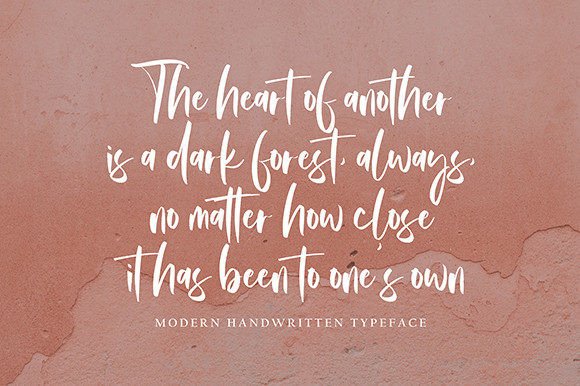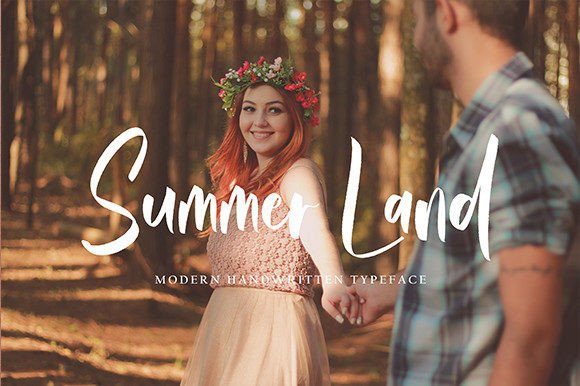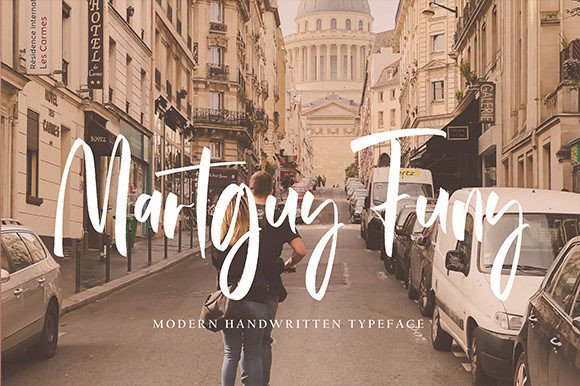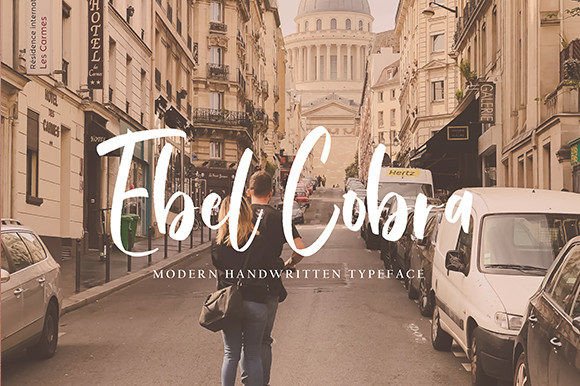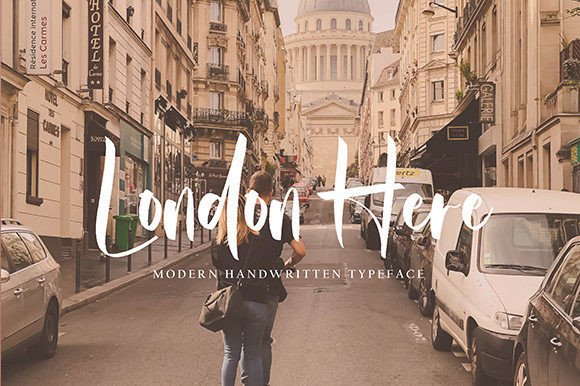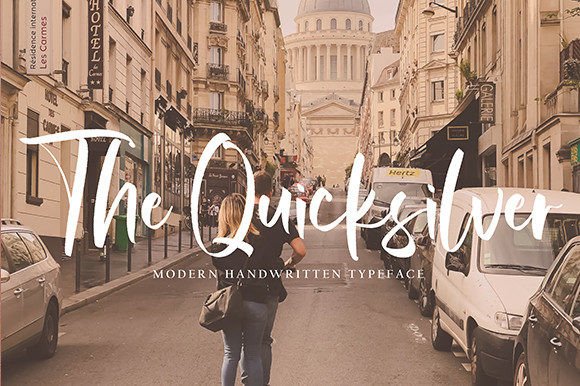
Introduction to Rothhiboy Font
As a designer, there’s nothing quite like the thrill of staring at a blank canvas, waiting for inspiration to strike. It’s that moment when you finally find the perfect font to bring your creative vision to life – and that’s exactly what the Rothhiboy Font does.
With its unique, handwritten script style, the Rothhiboy Font is a game-changer for any design project. Whether you’re working on a logo, social media graphics, or a full-fledged campaign, this high-quality font is sure to elevate your work and make it stand out from the crowd.
As a valuable addition to any designer’s library, the Rothhiboy Font offers a free download with a transparent background, making it easy to integrate into your creative project. In this article, we’ll explore the features and benefits of this amazing design resource, and show you why it’s a must-have for any serious designer.
Key Features of Rothhiboy Font
- High-quality font design suitable for creative projects, with a unique and modern style.
- Designed to be versatile, suitable for a wide range of design applications, from logos and branding to digital art and print materials.
- Includes a range of characters, including uppercase and lowercase letters, numbers, and punctuation marks, making it a comprehensive design resource.
- Perfect for designers looking for a unique and creative font to enhance their designs, and is an excellent addition to any design resource library.
Honest Review: Rothhiboy Font
As a designer, I was excited to dive into the world of Rothhiboy Font. This free download has been gaining popularity, and I wanted to see what all the fuss was about. Let’s take a closer look.
- What works well: ✨ The Rothhiboy Font is incredibly versatile, suitable for a wide range of creative projects, from elegant wedding invitations to modern business cards. Its high quality is evident, with crisp lines and a clear, readable font.
- What works well: ✨ The font’s transparent background makes it easy to use as a design resource, allowing me to layer it over other elements without any issues.
However, I did encounter a few limitations: ⚠️ The Rothhiboy Font is a bit limited in terms of customization options. While it’s great for general use, it might not be the best choice for complex, intricate designs.
Overall, I’m impressed with the Rothhiboy Font. Its high quality and versatility make it a great addition to any designer’s toolkit. While it may have some limitations, it’s a solid choice for a wide range of creative projects.
The Rothhiboy Font is ideal for various creative projects, including:
- Document design and templates